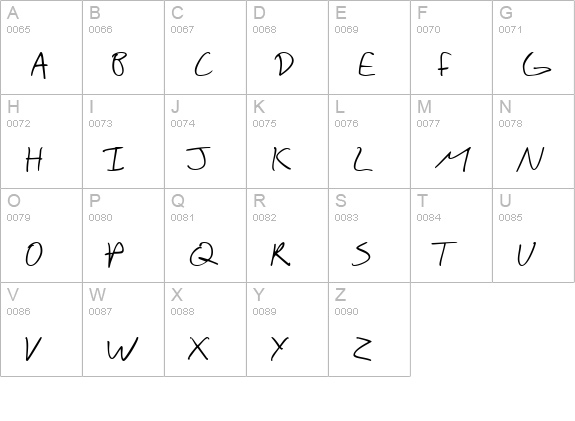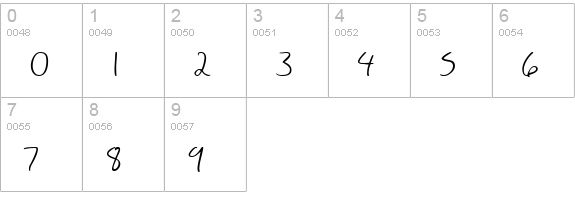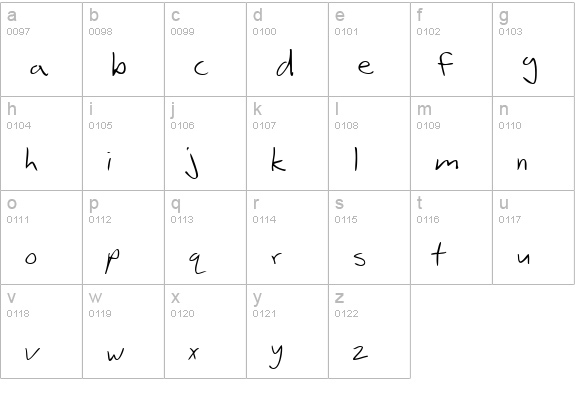
SF Scribbled Sans Font Details
Introducing SF Scribbled Sans, a captivating and innovative font that effortlessly combines the elements of hand-drawn authenticity and modern design. This font is a true representation of creative expression, perfect for those who seek to add a touch of whimsy and uniqueness to their projects. SF Scribbled Sans boasts a playful and imaginative style, with each character meticulously crafted to mimic the unpredictable strokes of a pen. Its irregular lines and charming imperfections bring a sense of organic artistry to any text, making it ideal for logos, branding, posters, and more. Whether you're working on a children's book, a trendy fashion magazine, or even a funky restaurant menu, this font is sure to make your content stand out. One of the best features of SF Scribbled Sans is that it is completely free. Yes, you read that right! This font is freely available to download at FontsMarket.com, allowing you to unleash your creativity without any cost constraints. Say goodbye to expensive font licenses and hello to endless possibilities! Downloading SF Scribbled Sans from FontsMarket.com is quick and hassle-free. With just a few clicks, you'll have access to this remarkable font, ready to elevate your designs to a whole new level. So why wait? Embrace the freedom of expression and let SF Scribbled Sans be your artistic companion. Download it today and embark on a journey of creativity like never before.